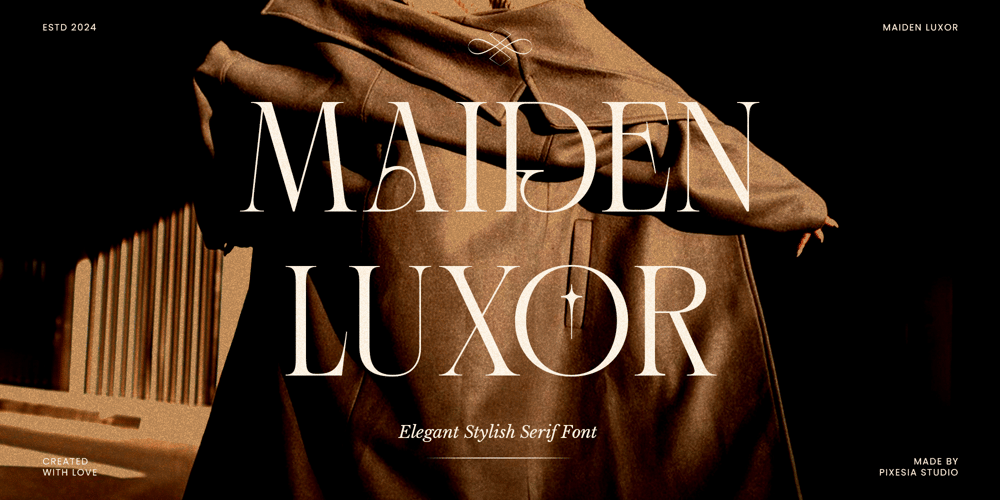
Maiden Luxor Font Family was designed by Abul Almaududi and published by Pixesia Studio. Maiden Luxor contains 2 styles and family package options. Introducing Maiden Luxor – Modern Luxury SerifMaiden Luxor is a sleek and modern serif font that offers a touch of luxury to your projects. This sleek font boasts strong character lines and an elegant charm that never goes out of style. The classic serif is blended with modern flair, making it stand out with its unique ligature feature, perfect for enhancing any design.Maiden Luxor is perfectly suited for branding, logotypes, wedding invitations, romantic quotes, labels, social media posts, advertisements, product packaging, product designs, label, photography, watermark, invitation, stationery and any projects seeking premium quality and luxury feel.FEATURES- Stylistic Alternates- Ligatures- Uppercase and Lowercase letters- Numbering and Punctuations- Works on PC or Mac- Simple Installation- PUA Encoded Characters – Easily accessible without additional design software.- Support Adobe Illustrator, Adobe Photoshop, Adobe InDesign, also works on Microsoft Word- Multilingual Support for 89 languages including Afrikaans, Albanian, Basque, Catalan, Danish, Dutch, English, Estonian, Faroese, Filipino, Finnish, French, Galician, German, Icelandic, Indonesian, Irish, Italian, Malay, Norwegian Bokmål, Portuguese, Spanish, Swahili, Swedish, ZuluHope you Like it.Thanks.